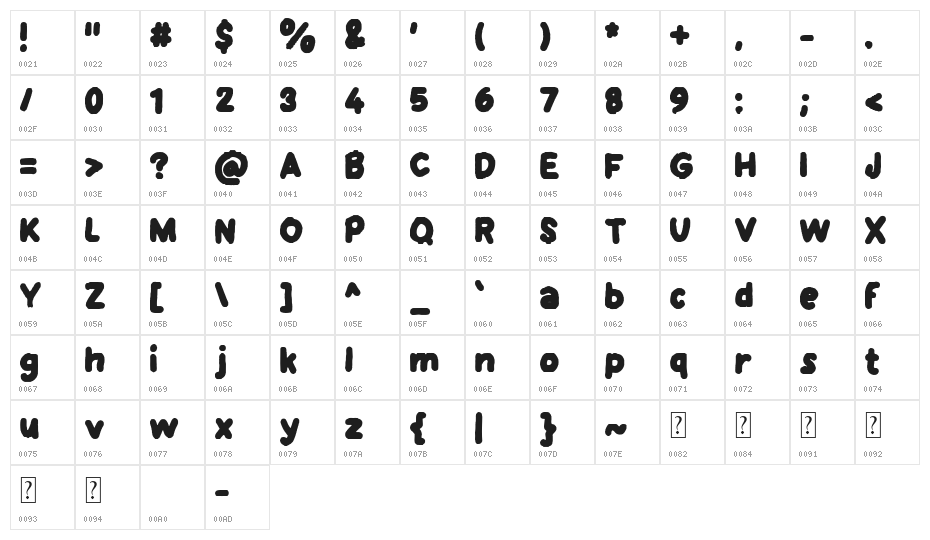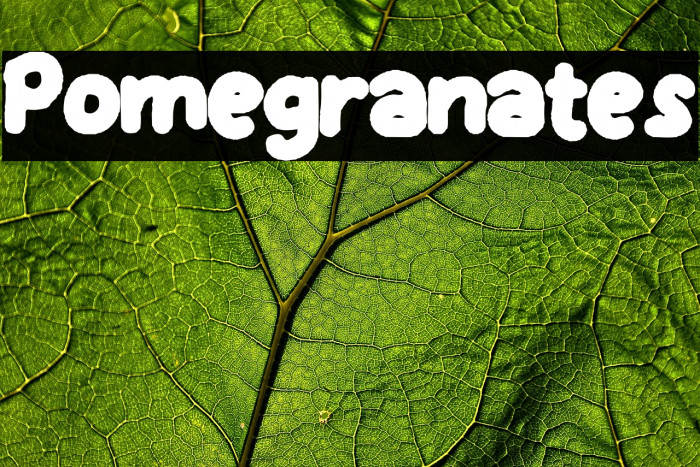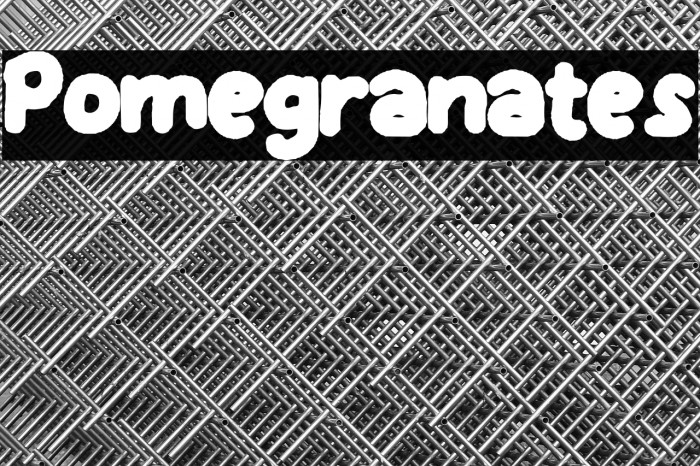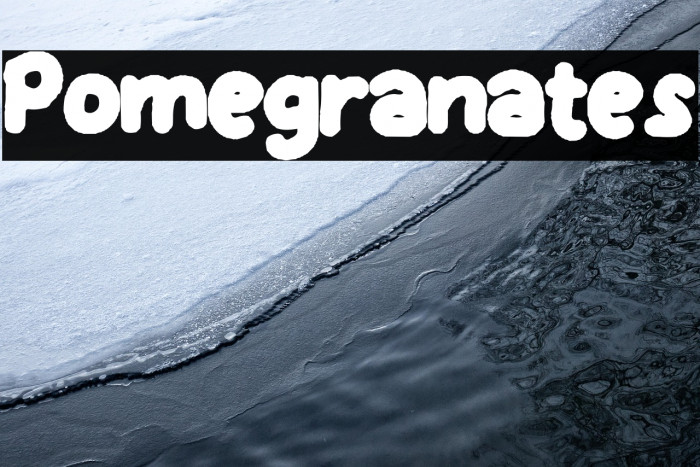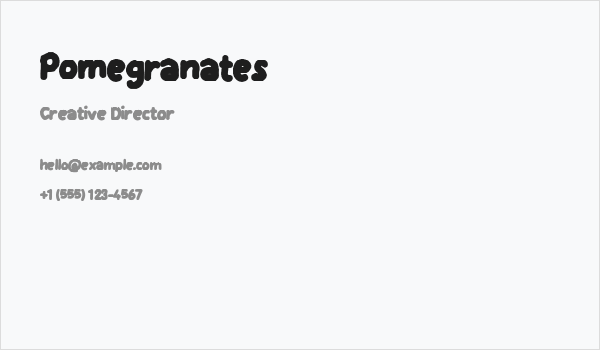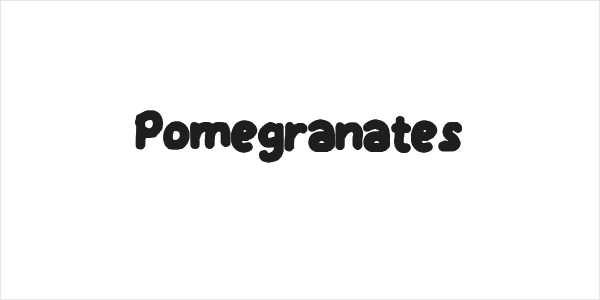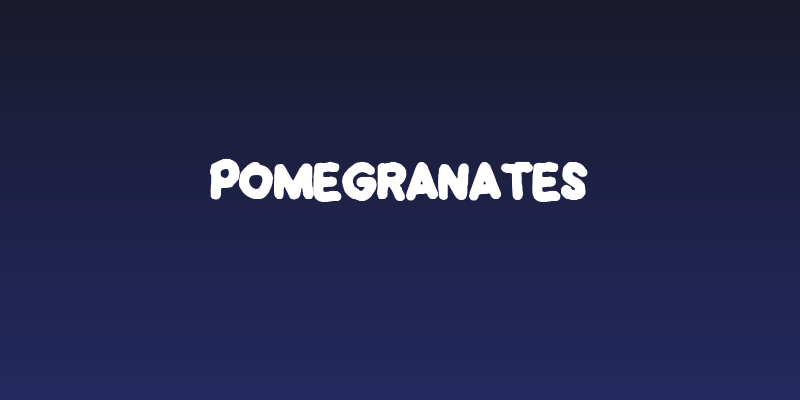
Pomegranates Font
Pomegranates Description
This font features a bold and playful style with rounded, thick strokes that give it a friendly and approachable appearance. The characters are uniformly bold, creating a strong visual impact. The rounded edges and consistent thickness throughout the letters contribute to a cohesive and harmonious look. This font is particularly suitable for designs that aim to convey a sense of fun and creativity. The numbers and special characters maintain the same boldness and rounded style, ensuring consistency across all elements.
| Use Case | Logos, Posters, Creative Advertising |
| Proposed Projects | Ideal for children's books, playful branding, posters, and creative advertising. |